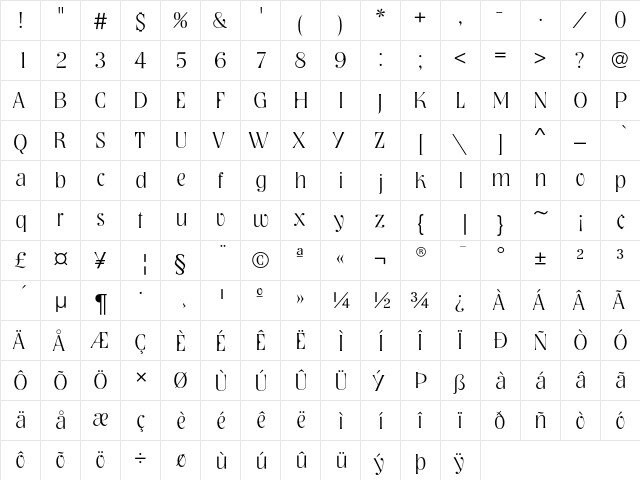
NashvilleEF ExtraLight Font Preview
NashvilleEF ExtraLight
Design Context for NashvilleEF Typeface
NashvilleEF offers clean, dependable letterforms without strong stylistic allegiance, making it a practical choice for designers who need flexibility. Its slender proportions lend an understated elegance to any composition.
Pro Tip: Pair NashvilleEF with a font of contrasting weight or personality to build a more expressive typographic hierarchy.